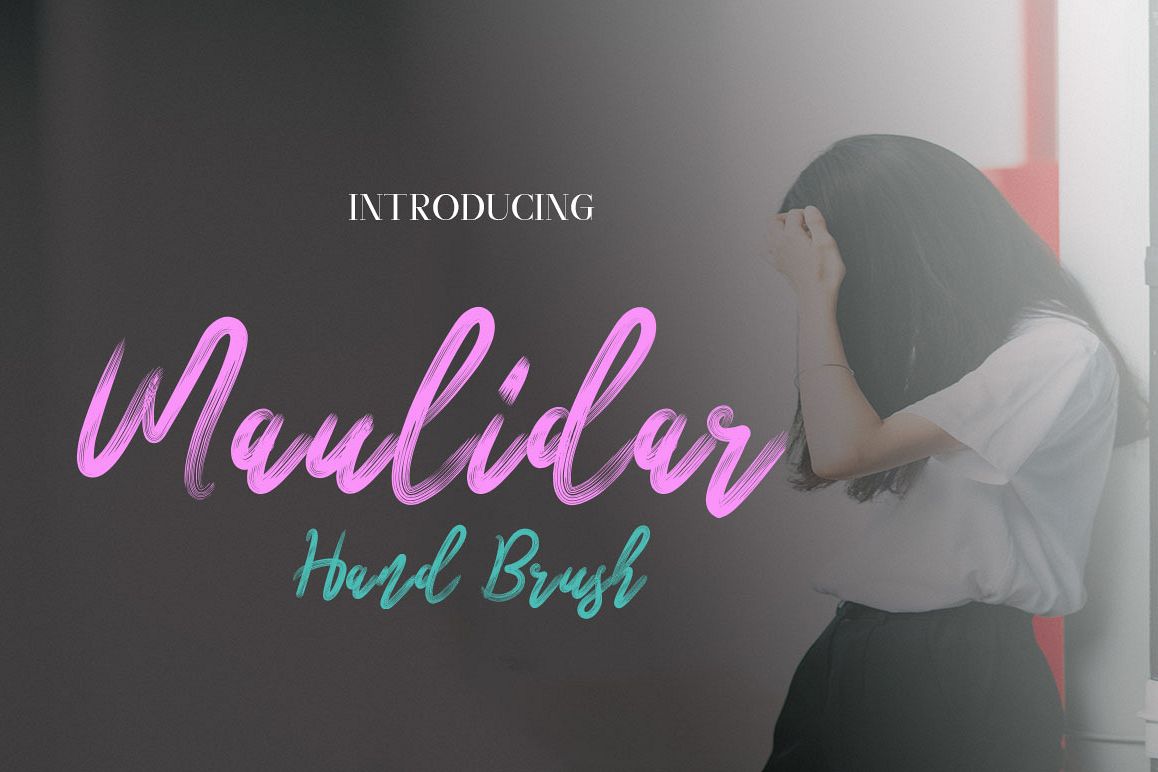
Maulidar
Maulidar-Regular
Maulidar hand  New fresh & modern style with handmade calligraphy, decorative characters and dancing lineage! So wonderful are invitations like greeting cards, branding material, business cards, quotes, posters, and more !!